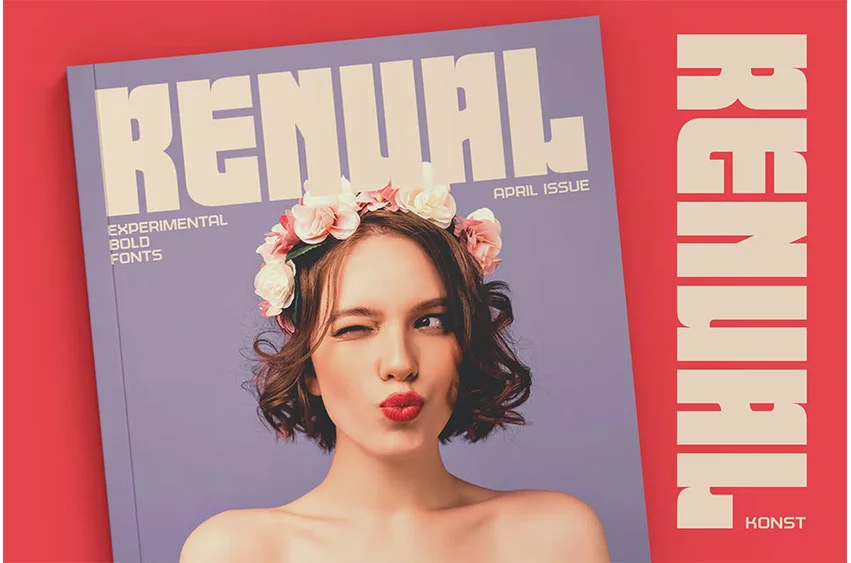
Renual Contemporary Bold Font
Renual Contemporary Bold Font Be bold, loud, and experimental with Renual. Fonts that you rarely see.
Perfectly fit for your urban poster design, Instagram branding, logo, magazine, fashion, album artwork, cover artwork, game design, nft project, and many more.